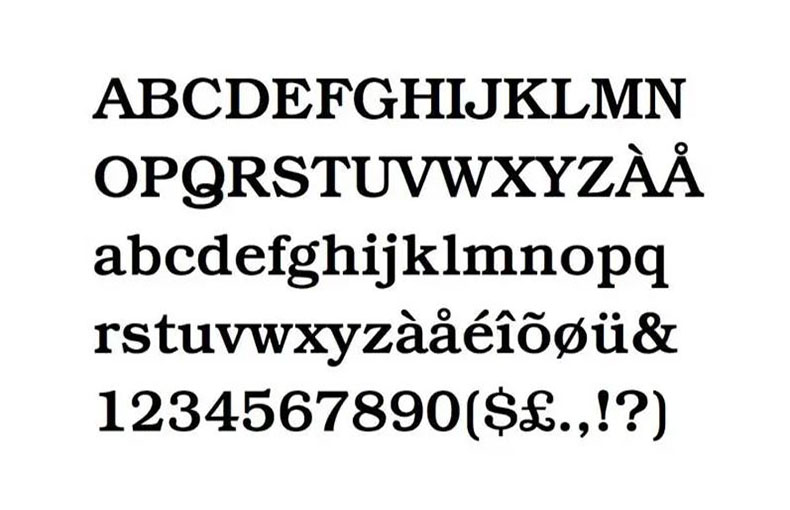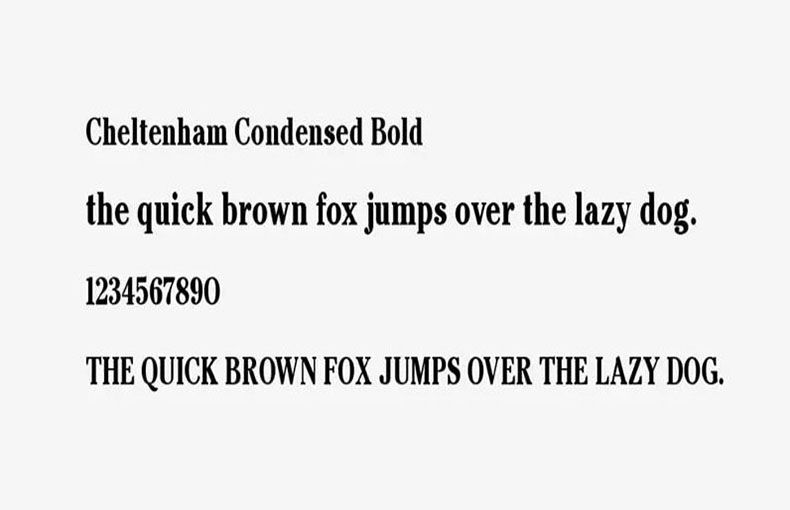
Cowboy Bebop is a Japanese neo-noir space Western animated television series released in 1998. The first aired in Japan on TV Tokyo on 3 April 1998.
It is one of the greatest animated television series of all time. It was a critical and commercial success in Japanese and international markets, particularly in the United States.
The font used in the Cowboy Bebop is very similar to the ITC Bookman Bold. And Cheltenham Bold Condensed is used in the series finale title.
Bookman Bold was designed by ITC and Cheltenham Bold Condensed was originally designed by Bitstream. You can download these fonts without any hustle on FontPearl.
Cowboy Bebop is a Japanese neo-noir space Western animated television series released in 1998. The first aired in Japan on TV Tokyo on 3 April 1998.
The font used in the Cowboy Bebop is very similar to the ITC Bookman Bold. And Cheltenham Bold Condensed is used in the series finale title.